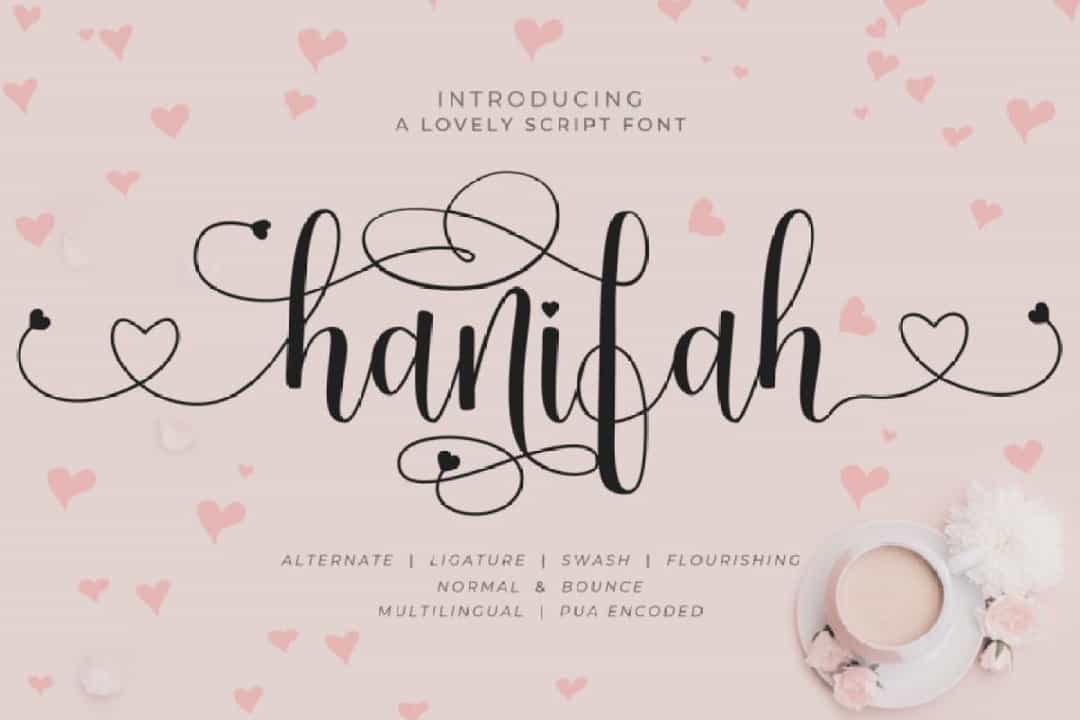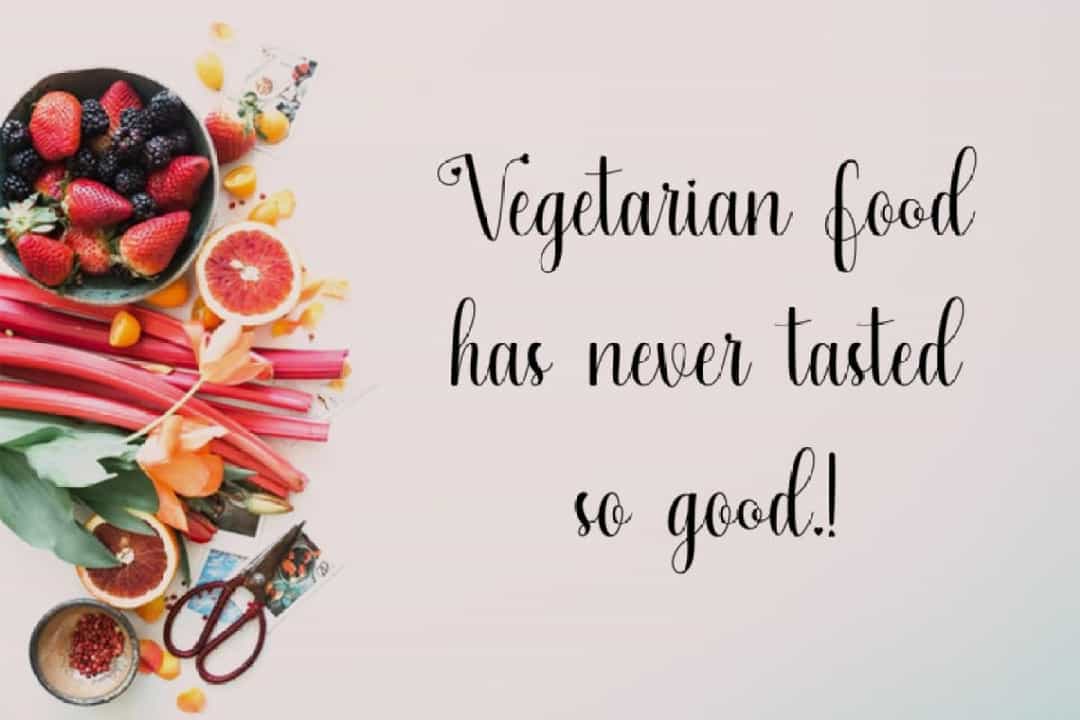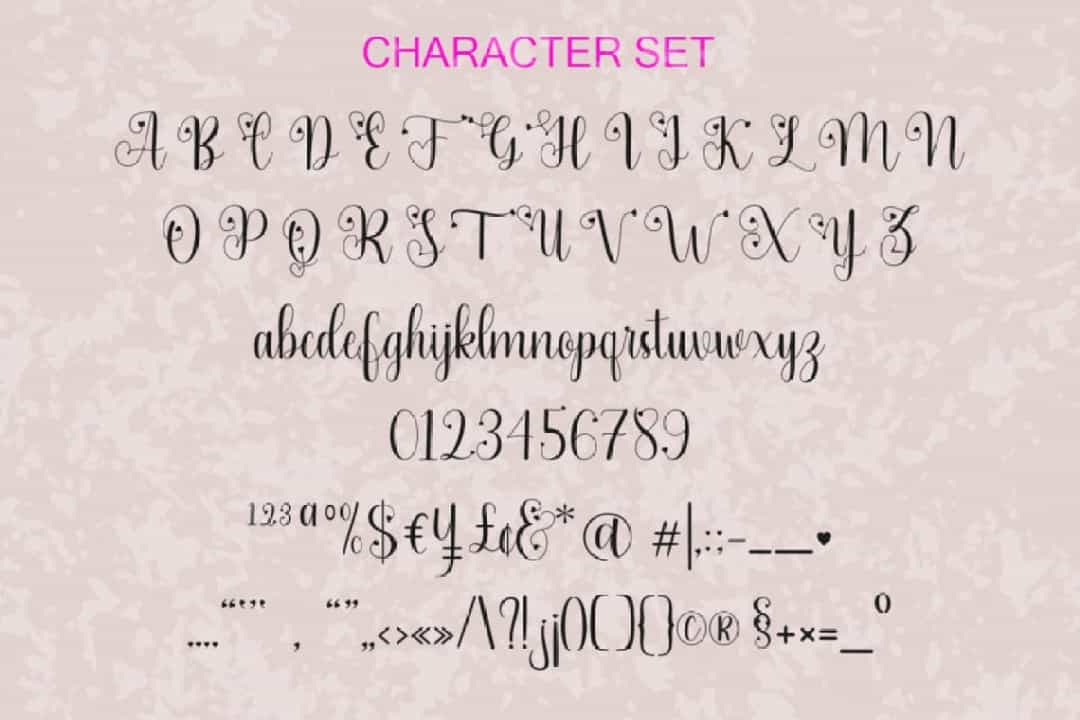
It is the Hanifais an exceptional script font. It has delicate lines and nice look and can be made in any way: with or without a regular pattern, casual or without a tail, which makes it versatile.